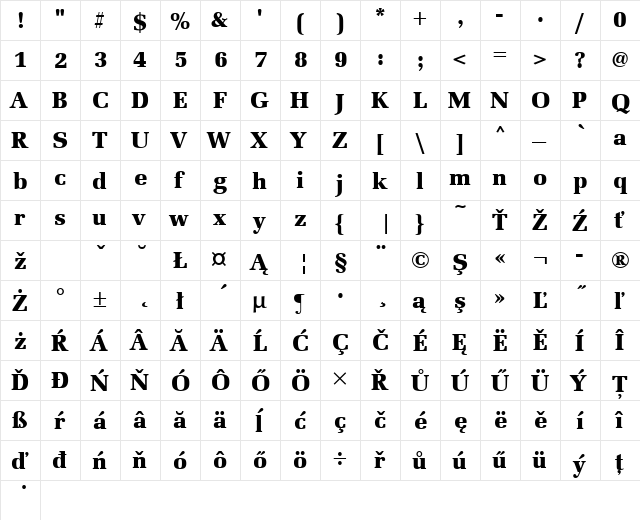
URWLatinoTEEBla Regular
Design Context for URWLatinoTEEBla Typeface
URWLatinoTEEBla offers clean, dependable letterforms without strong stylistic allegiance, making it a practical choice for designers who need flexibility.